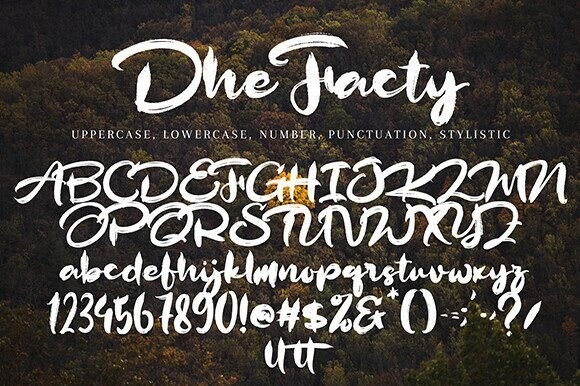
Dhe Facty Font
Dhe Facty Font is a cool and trendy brush handwritten font. No matter the topic, this font will be an incredible asset to your fonts’ library, as it has the potential to elevate any creation.